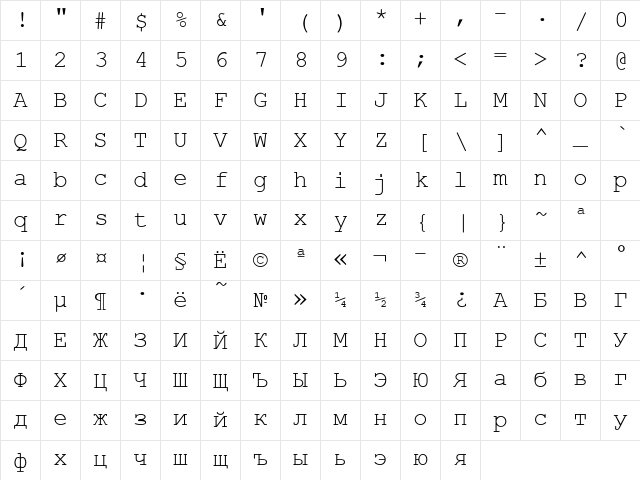
Courier Stylus Regular
Design Context for Courier Stylus
Courier Stylus uses fixed-width spacing throughout, giving it the structured, systematic character associated with coding environments and technical documentation.
Pro Tip: Use Courier Stylus with slightly increased line-height for extended reading - fixed-width spacing can feel dense in longer passages without extra breathing room.